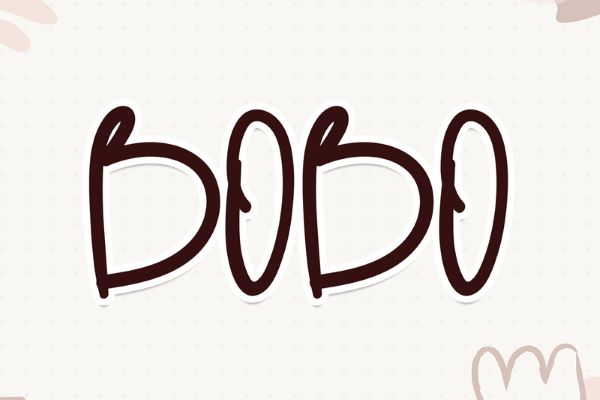
Bobo Font
Bobo Font is a Doodle Font by Scratchones with a warm, childlike handwritten personality that brings instant charm to any project it touches. Its distinctive all-caps character set is full of creative expression and stands out from the crowd through sheer character alone — the kind of typeface that makes children’s content, banners, and packaging feel genuinely handcrafted and full of life.
It works beautifully on children’s books, wall displays, wedding invitations, social media posts, product labels, photography watermarks, and any design that needs that authentic handwritten warmth. Browse our full library of Free Fonts and discover more fun, artistic typefaces from independent designers worldwide.